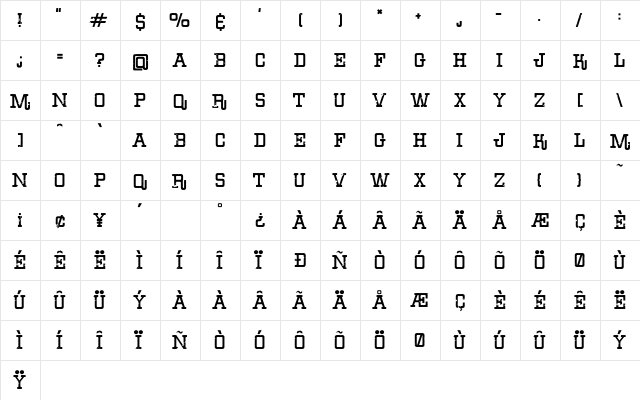
Eroded Denim Regular
Design Context for Eroded Denim Typeface
Eroded Denim trades polish for personality, using distressed and eroded forms to bring grit and attitude to creative work.
Suited to punk-influenced zines, underground music branding, streetwear, and raw, anti-corporate design.
Pro Tip: Pair Eroded Denim with intentionally raw or lo-fi design elements. Fighting against it with overly polished surroundings will undermine its personality.